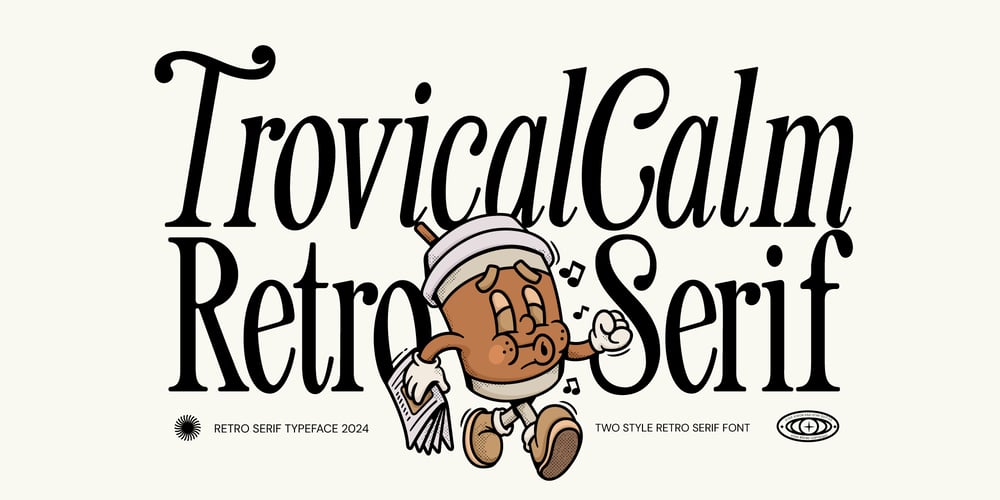
Fd Trovical Calm
Fd Trovical Calm font
Fd Trovical Calm Font Family was designed by Ramandhani Nugraha and published by Fortunes Co. Fd Trovical Calm contains 2 styles and family package options. Sans-serif fonts for advertising with a retro theme strike the perfect balance between modern minimalism and vintage charm. Its streamlined design enhances readability and exudes a sense of timelessness. In advertisements, the focus is on bold, impactful messaging instead of decorative serifs. With retro-inspired color schemes and design elements, this font looks like mid-century posters. From branding to event promotions, it channels the sleek, no-nonsense approach of classic commercial design.